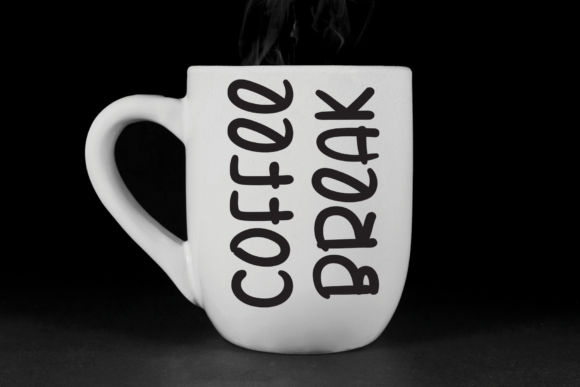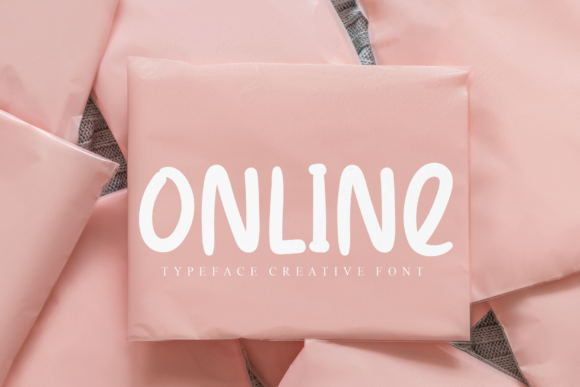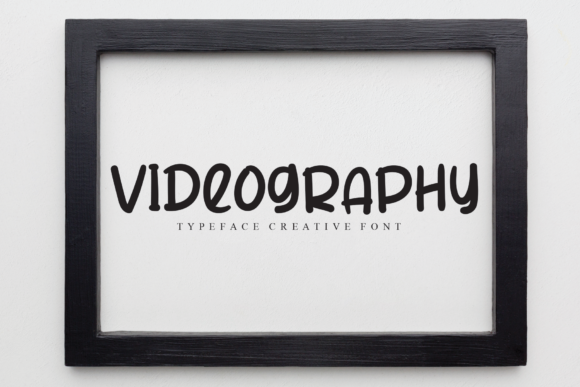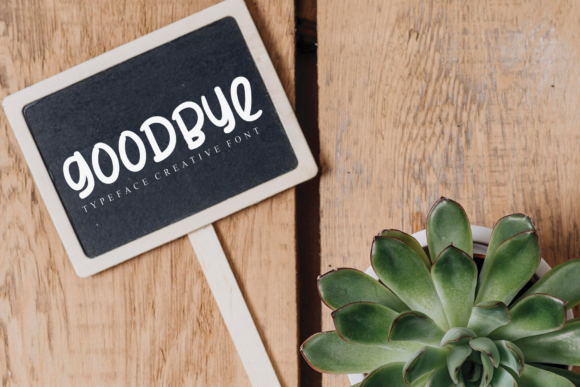
Rabbit Font
About Rabbit Font
Rabbit is a cool, fresh and relaxed handwritten font. Simple but with a strong visual effect, this font will instantly make your creation more appealing than any others.